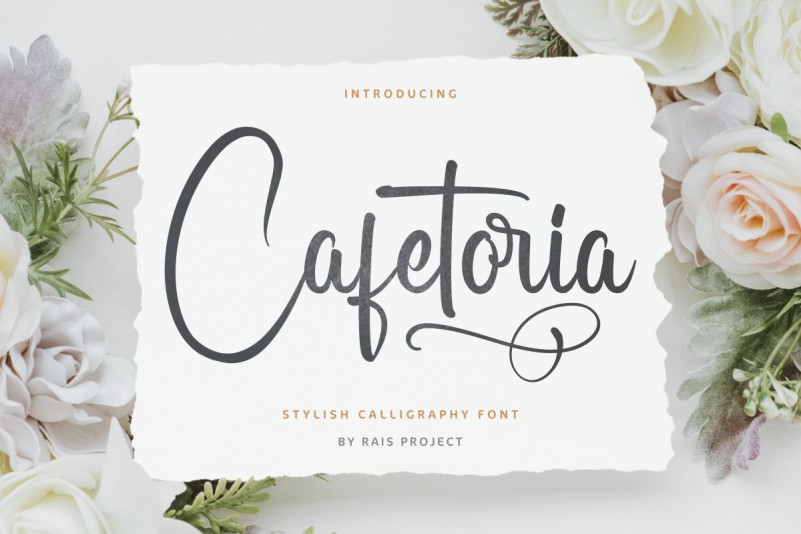
Cafetoria Script Font
Cafetoria Font is a beautiful calligraphy display font, designed by Rais Project. Great for signage, logotype, brochure or any project with hand lettered feel.
The font was handcrafted for any your special projects including : headlines, promotion, events, branding, advertising, magazine, signage, invitation, stationery, social media posts, label, or and any projects that need unique strong style. The theme/industries of this font is makeup, cosmetic, culinary, restaurant, café, wedding etc
Cafetoria Font includes full set of gorgeous uppercase and lowercase letters, numerals, a large range of punctuation and ligatures. All lowercase letters include beginning and ending swashes, giving a strong unique style.